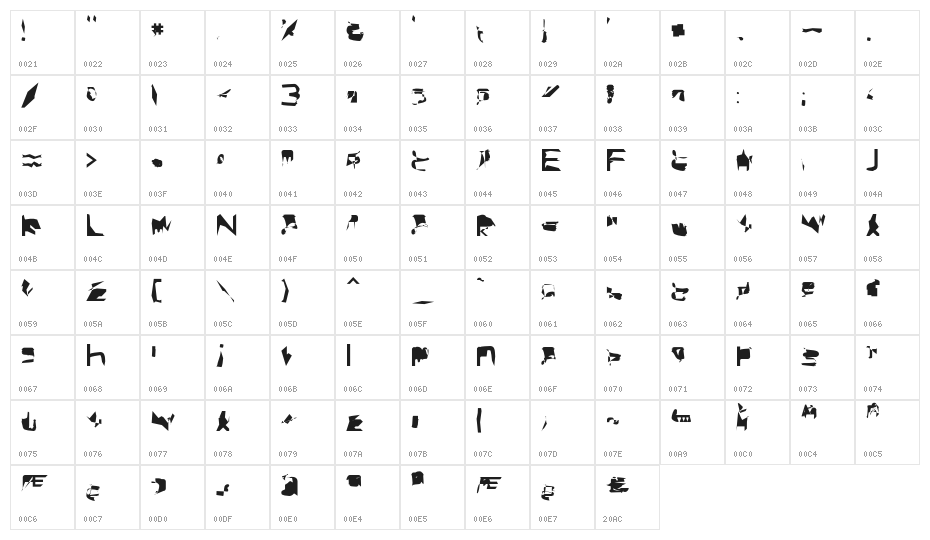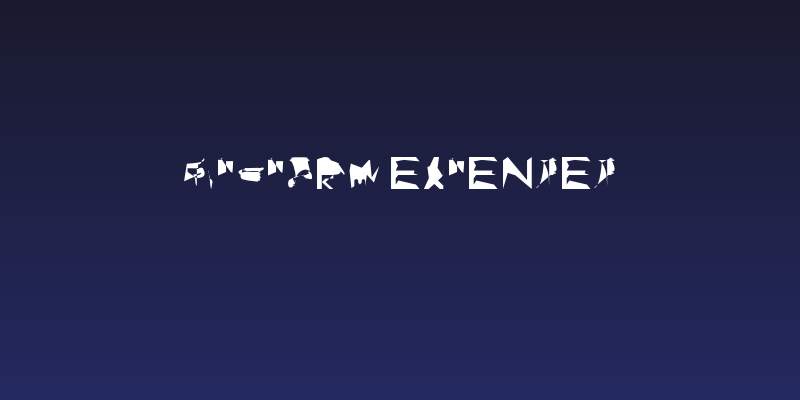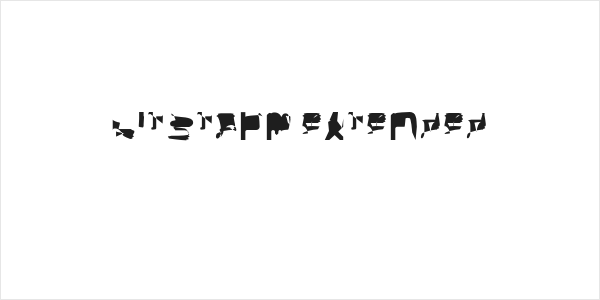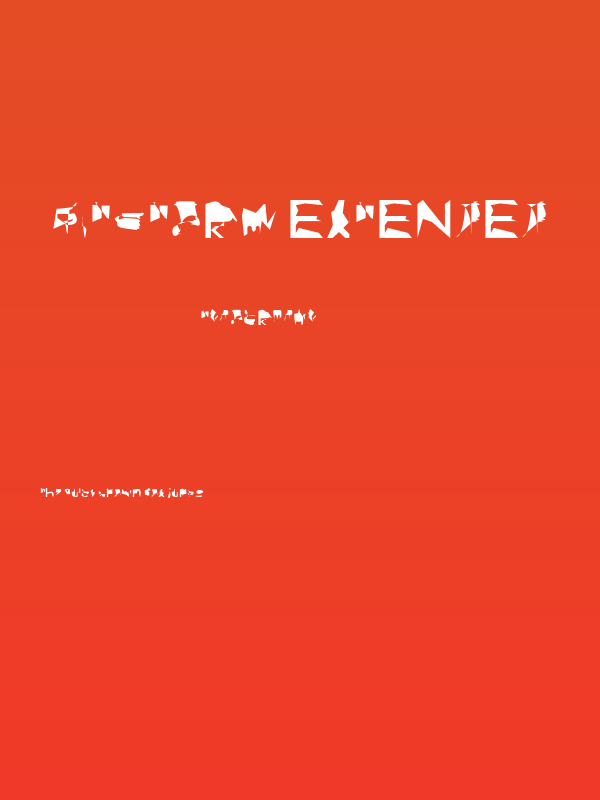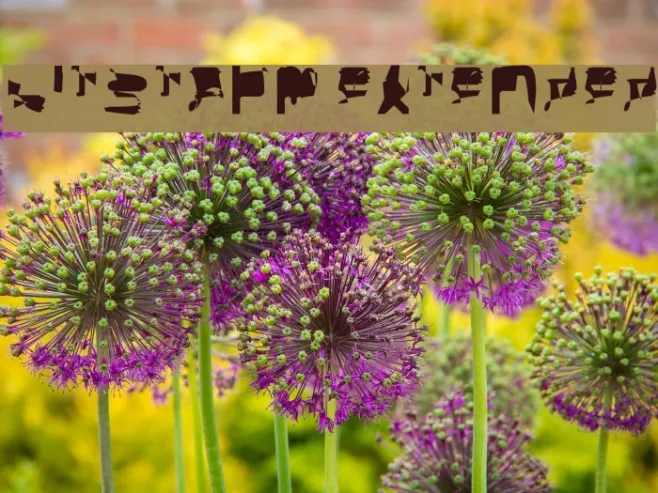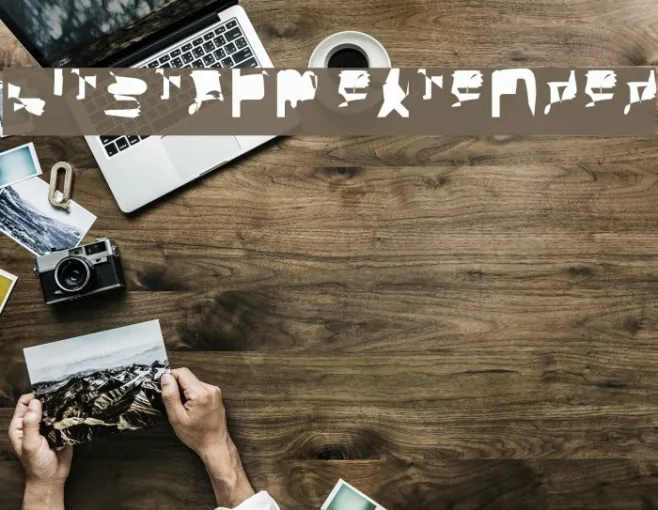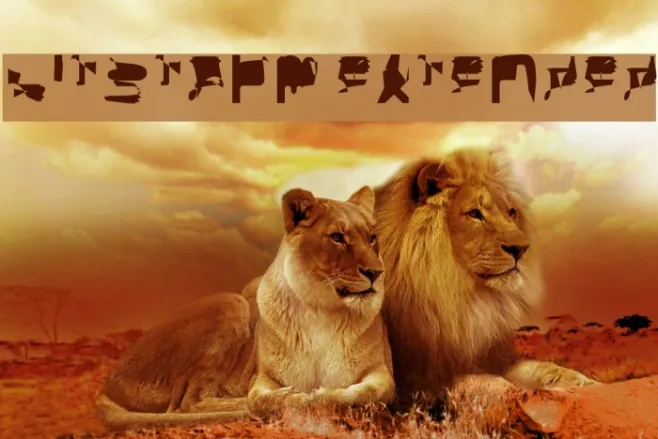
bitstorm extended Font
bitstorm extended Description
This font presents a highly abstract and fragmented design, characterized by its sharp, angular shapes and irregular forms. Each character appears to be constructed from a series of broken, jagged lines, giving it a chaotic and dynamic appearance. The font's style is reminiscent of a digital glitch or a shattered glass effect, where the letters are partially obscured and distorted. This creates a sense of movement and energy, making it stand out as a bold and unconventional choice. The overall aesthetic is modern and edgy, suitable for projects that aim to convey a sense of disruption or avant-garde creativity.
| Overall Style | Modern, Edgy |
| Proposed Projects | Ideal for digital art, experimental design projects, album covers, or any creative work that seeks to convey a sense of disruption or modernity. |